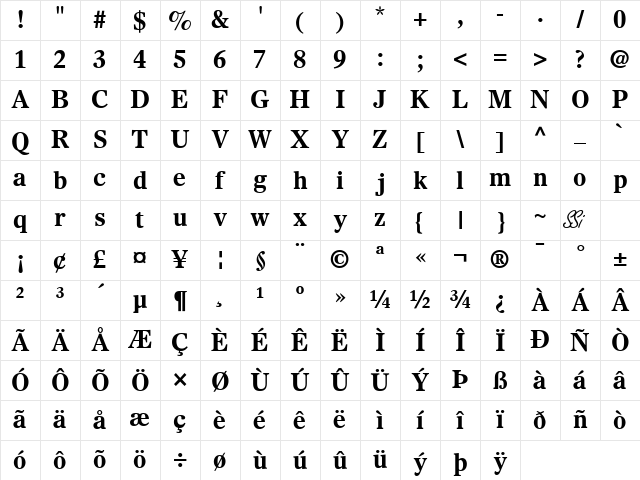
Sterling SSi Bold Free Font
Sterling SSi Bold
Sterling SSi Family
Sterling SSi Bold
Design Context for Sterling SSi
Sterling SSi is a composed and adaptable typeface that performs quietly and consistently across a wide range of design contexts. Its bold stroke weight gives it real presence on the page.